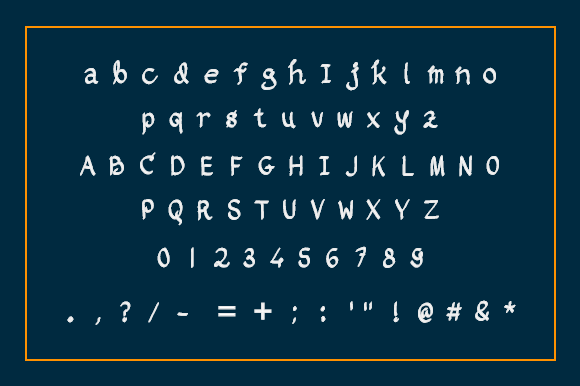
Introduction to Radja Font Font
Fonts play a crucial role in design, and the Radja Font font is a typeface that brings both character and versatility to any project. Whether you’re working on a branding project, a website, or a print design, the Radja Font font offers a unique style that can elevate your work.
Radja is a casual, charming handwritten font, designed with the help of a brush pen.
It has been carefully handcrafted to become a true favorite Radja will look outstanding in any context, whether itβs being used on busy backgrounds or as a standalone headline.
Key Features of Radja Font Font
Why Choose Radja Font Font?
The Radja Font font is more than just a typeface β it’s a design tool that helps you communicate your message with style and clarity. Its unique character set and versatile design make it suitable for a wide range of applications, from elegant invitations to bold headlines.
With its carefully crafted letterforms and balanced proportions, the Radja Font font ensures readability and visual appeal across all mediums.
What makes Radja Font font special?
The Radja Font font stands out with its unique design, exceptional readability, and versatility across various design applications.